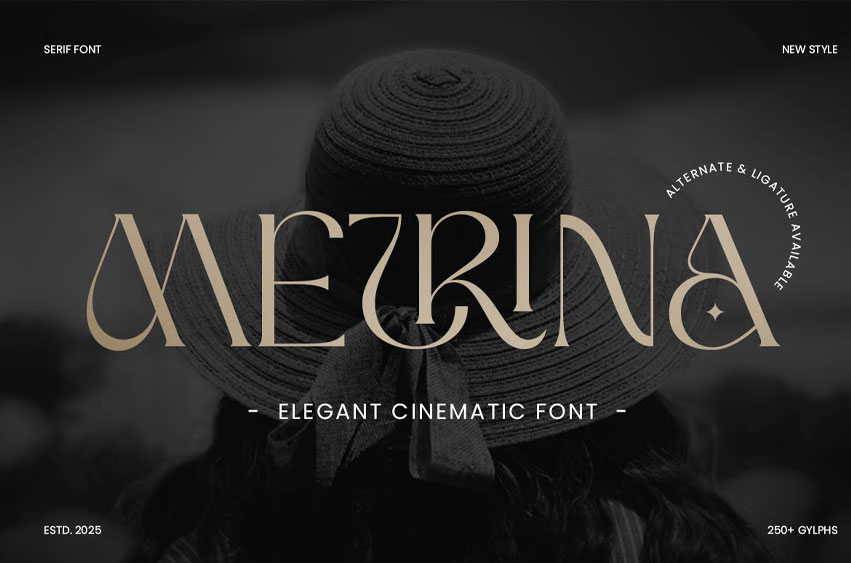
Metrina Font is an elegant cinematic font that brings a touch of sophistication and luxury to your designs. Perfect for film titles, high-end branding, and upscale editorial work, METRINA features graceful curves, refined serifs, and a timeless style that exudes class.
Whether you’re designing a cinematic logo, an invitation for a luxury event, or a glamorous magazine cover, METRINA adds a polished, professional touch to any project. Inspired by the glamour of classic cinema and modern elegance, this font is ideal for creating memorable, high-impact visuals.
METRINA – Elegant Cinematic Font Features
- Elegant letterforms with a cinematic feel
- Perfect for film titles, luxury branding, and sophisticated design projects
- Includes uppercase, lowercase, numerals, and punctuation
- Sleek, high-end design with a refined aesthetic
- OpenType features for advanced typographic styling
Add timeless elegance to your designs with METRINA – the perfect font for cinematic and luxury branding.